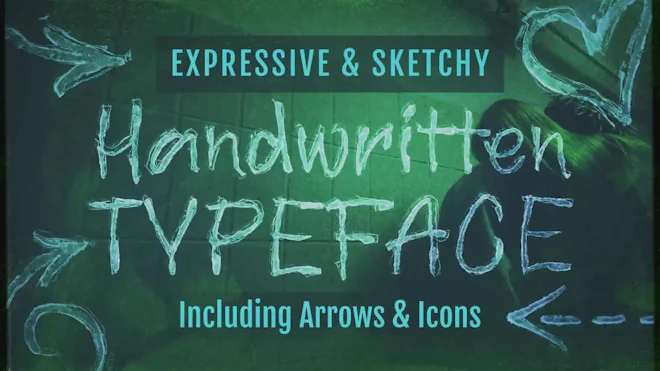
This stock motion graphics video pack includes 104 different clips of handwritten expressive typefaces (upper and lower case alphabet, numerals, and some special characters), icons, and arrows on a transparent alpha channel in a seamless loop.